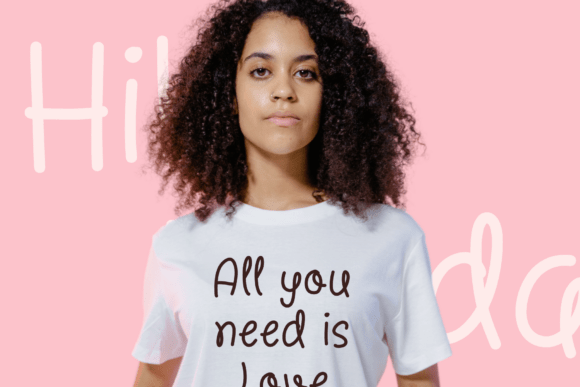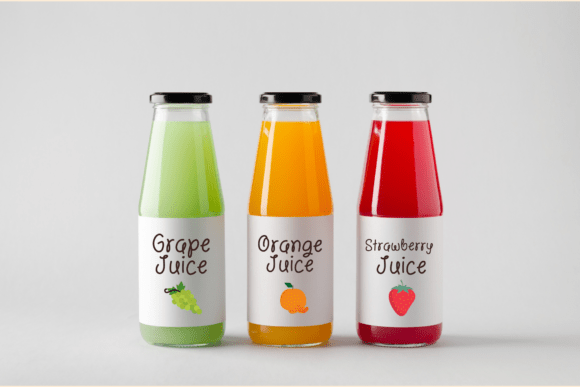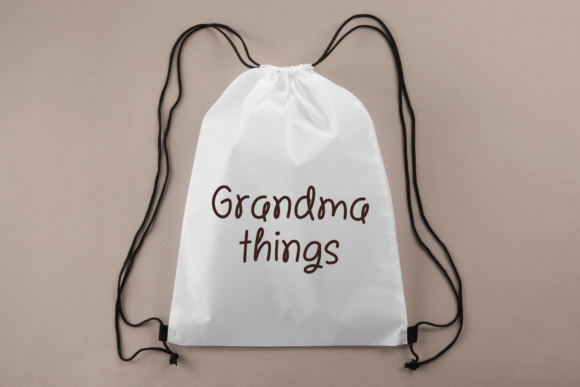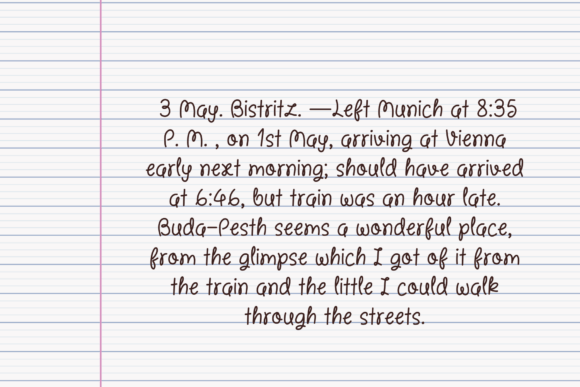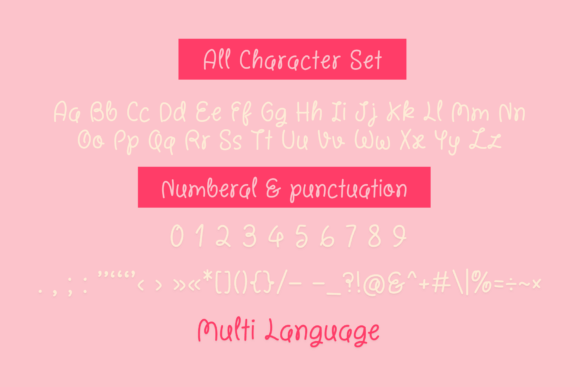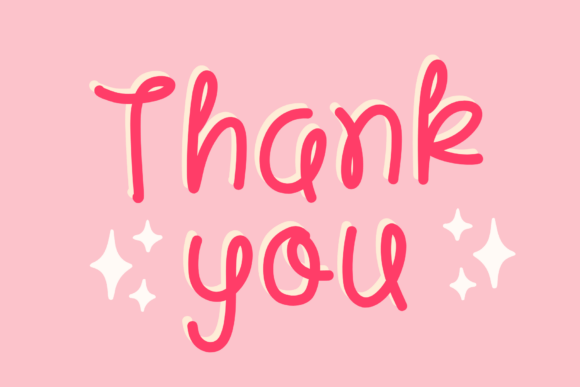
Introduction to Hey Notes Font
Have you ever been working on a creative project, pouring your heart and soul into it, and then suddenly, a spark of inspiration hits you? That’s exactly what happened to me when I stumbled upon the Hey Notes Font. Its playful, handwritten style instantly caught my attention, and I knew I had to dive deeper into its world. This font is not just another design resource, but a breath of fresh air that can elevate any project from ordinary to extraordinary.
As a designer, I’m always on the lookout for high-quality fonts that can add a personal touch to my work. The Hey Notes Font is a game-changer, offering a free download that’s perfect for all your creative endeavors. With its transparent background and versatility, it’s a must-have for any designer looking to add a unique touch to their designs.
Key Features of Hey Notes Font
- High-quality design with a minimalist aesthetic, perfect for creative projects.
- Unique, hand-drawn style with a subtle imperfection, adding a touch of personality to your designs.
Honest Review: Hey Notes Font
I recently had the chance to work with the Hey Notes Font, and I’m excited to share my honest thoughts on this design resource. Overall, I’m impressed with the high quality and versatility of this font.
What works well: ✨ The Hey Notes Font has a unique and creative design that makes it perfect for any project that requires a fun and playful touch. The transparent background makes it easy to layer with other design elements, and the font is incredibly easy to customize. I also appreciate that it’s a free download, making it an excellent addition to any designer’s toolkit.
Limitations: ⚠️ While I love the Hey Notes Font, I do wish it had more weight options to give designers more flexibility when using it in larger text blocks. Additionally, some users may find the font’s playful design too distracting for more formal projects.
Overall, I’m impressed with the Hey Notes Font and would highly recommend it to designers looking for a fun and creative design resource.
The Hey Notes Font is ideal for various design projects such as: digital invitations, social media graphics, blog posts, and even business presentations. With its high-quality design and transparent background, this font is a valuable addition to any design resource collection.